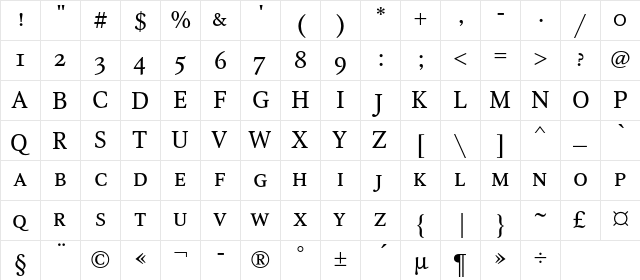
OctavaSCC Regular
Design Context for OctavaSCC Typeface
OctavaSCC offers clean, dependable letterforms without strong stylistic allegiance, making it a practical choice for designers who need flexibility.
Pro Tip: Use OctavaSCC in both headline and body roles to test its range before committing to a single application.